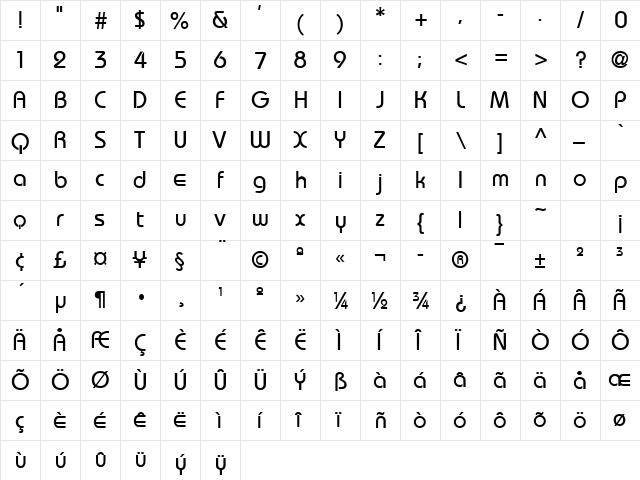
Yarnell Normal
Design Context for Yarnell Typeface
Yarnell takes a measured approach to typography — its balanced proportions and neutral character make it a reliable workhorse for both digital and print work.